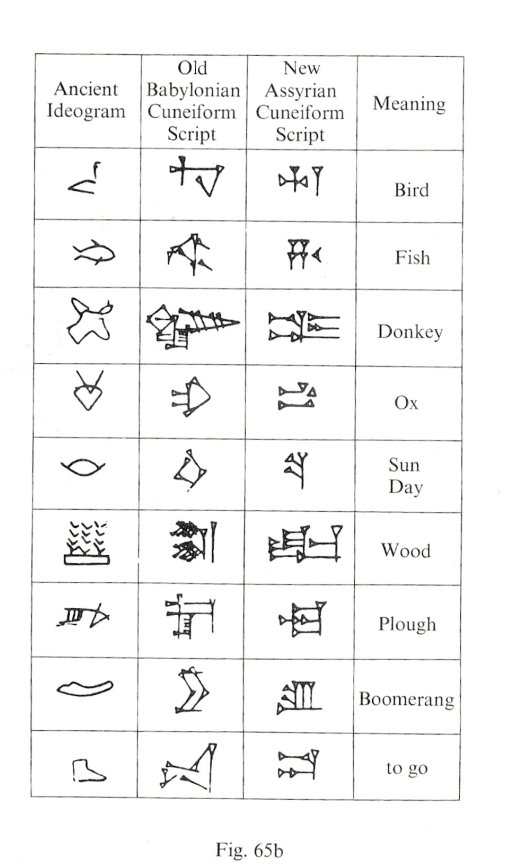
It appears to be an "universal" truth that any script that starts life as a pictographic system eventually evolves into an abstract form. Mesopotamian cuneiform influenced script development from Asia Minor (Hittite cuneiform) to Persia and developed from primitive or perhaps primal is a better word forms used by the Sumerians to the wedges hence "cunei" of later scripts.
If anyone's thinking after seeing this last one ... ah ha proof of an ancient universal script! ... not necessarily ... there's only so many ways you can represent a mountain with as few strokes as possible.
It does seem however to be a general principle that
Symbols come before sound in the development of scripts.